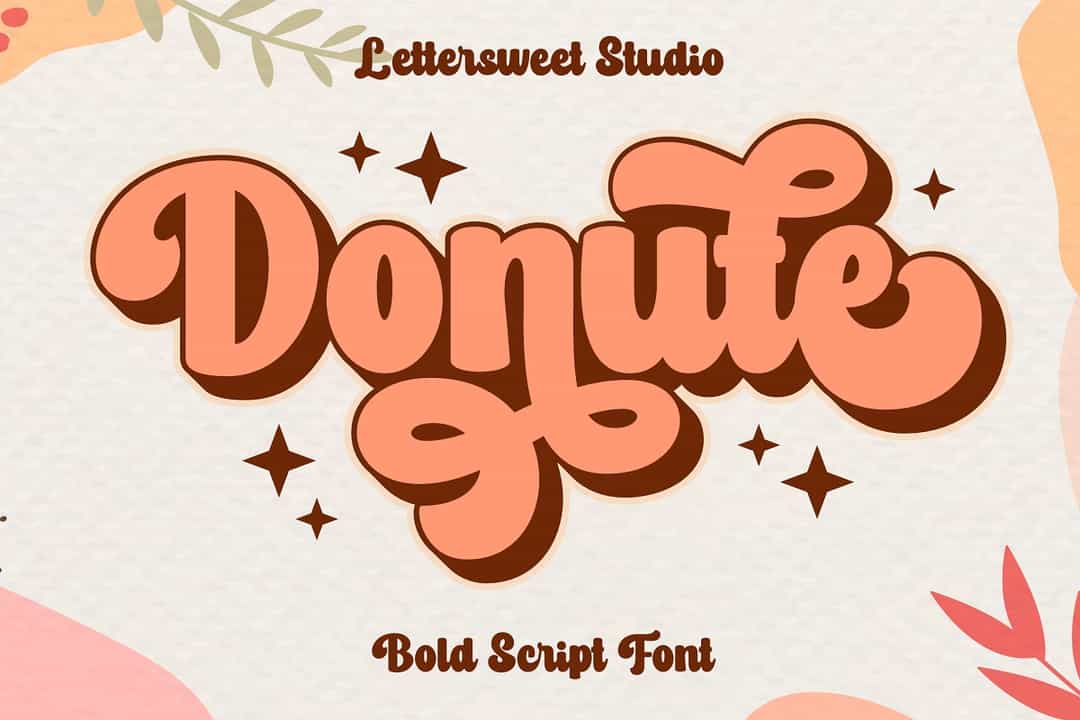
Donute is a retro-styled display script font with an eye-catching retro aesthetic and beautiful letterforms. Its retro charm comes from its flowing strokes and harmonious characters; perfect for many styles and formats! PUA encoded, it allows access to all its glyphs, swashes and characters easily!